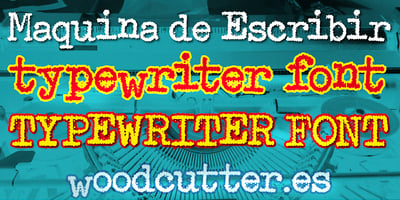
Maquina de Escribir
Maquina de Escribir font
Maquina de Escribir Font Family was designed by Jordi Manero and published by Woodcutter. Maquina de Escribir contains 1 styles and family package options. “Máquina de Escribir” is a complete typeface with accents that mimics an old typewriter. Its letters feature ink defects and slight variations in position, evoking the nostalgic charm of manually typed texts. Each character reflects the wear and imperfection of old typewriters, creating an authentic and vintage feel in your projects. Perfect for designs seeking a retro aesthetic or a handcrafted touch, “Máquina de Escribir” adds a rich and unique texture to your writings, from letters to posters and any graphic material that needs a dose of nostalgia.